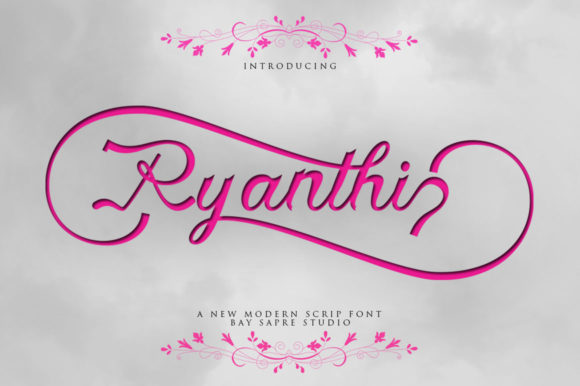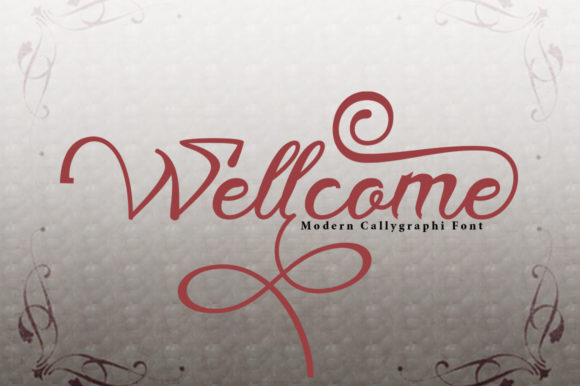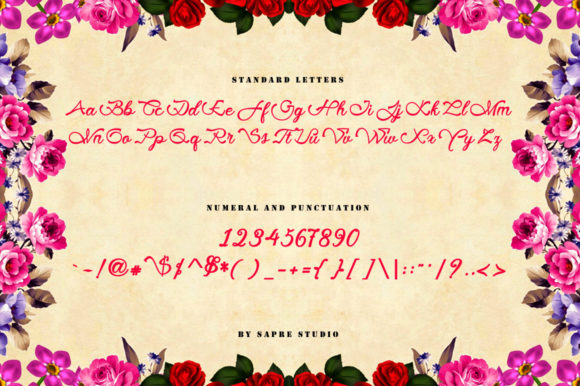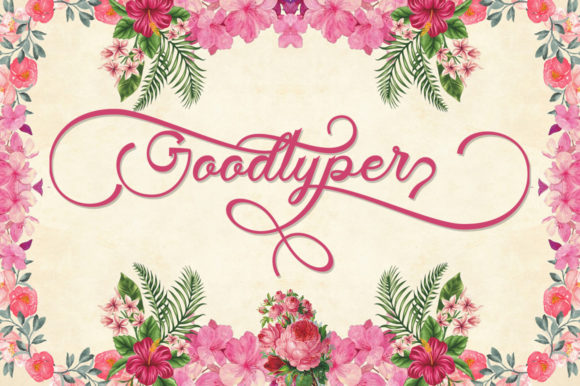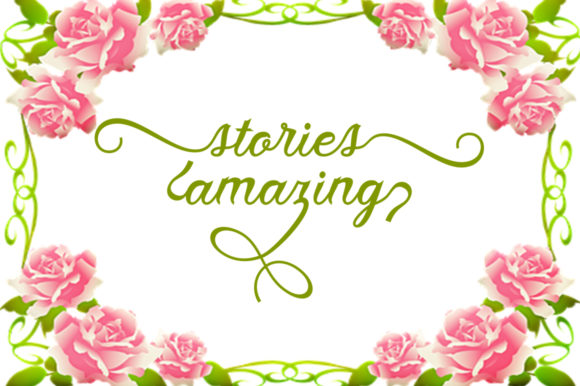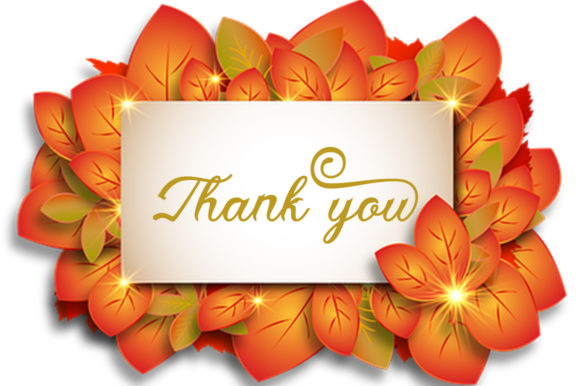
Ryanthi Font
About Ryanthi Font
The Ryanthi is an amazing script font. It has fine lines which will add a modern and elegant touch to your designs.
It’s easy to use and will create an unique design in an instant.